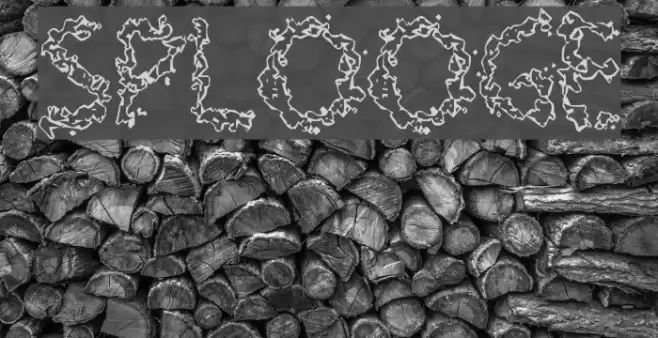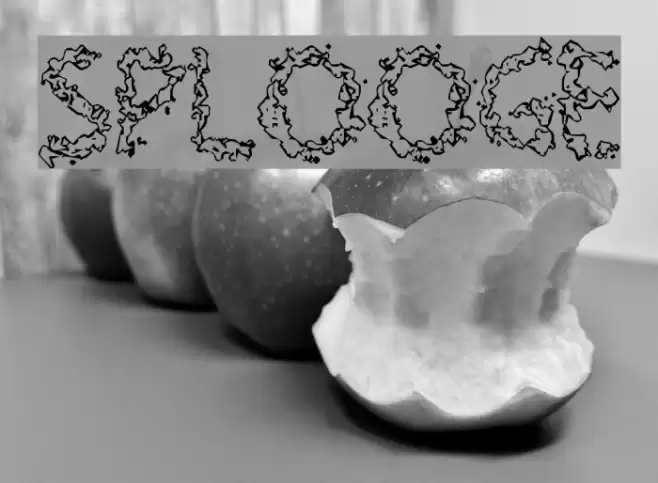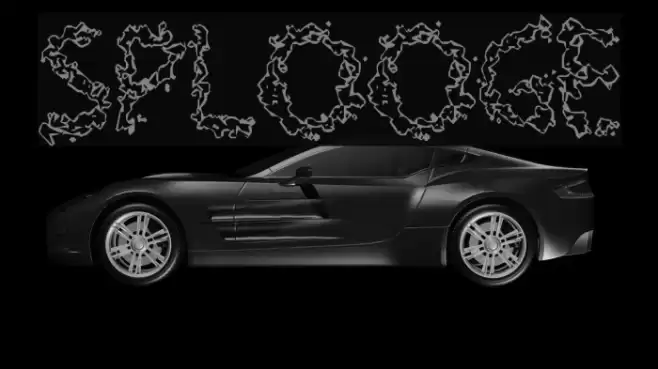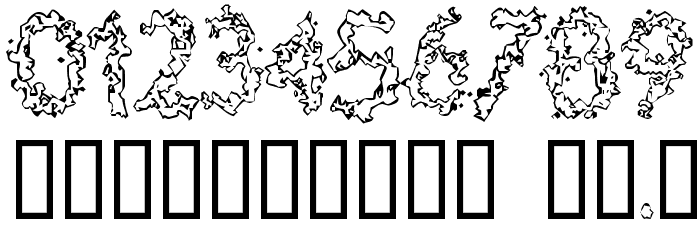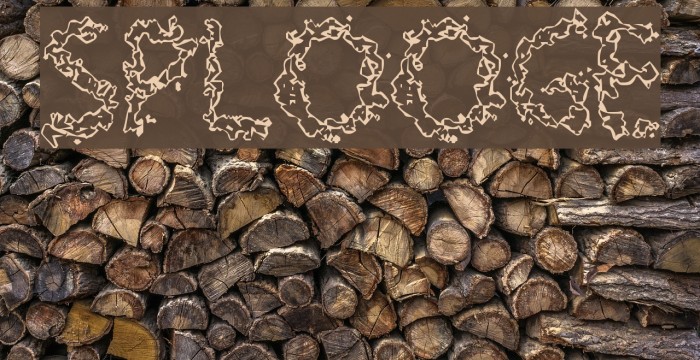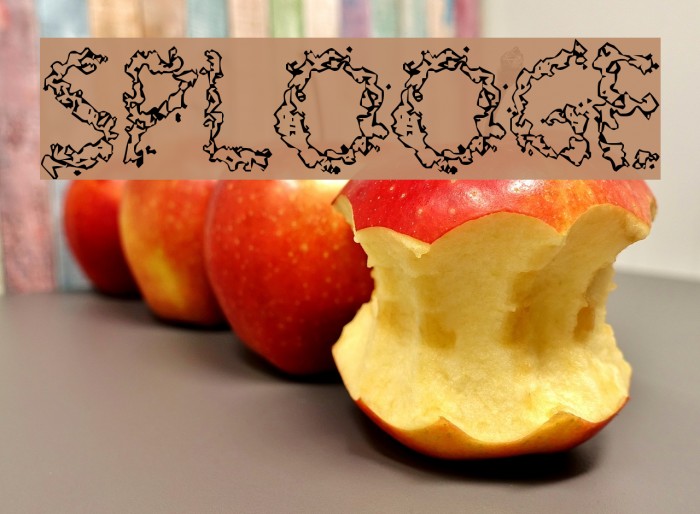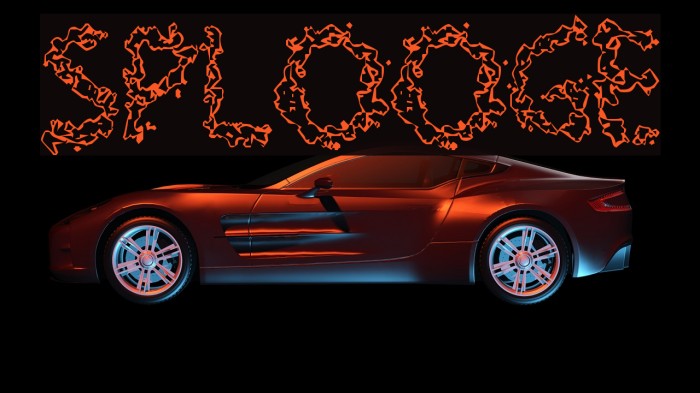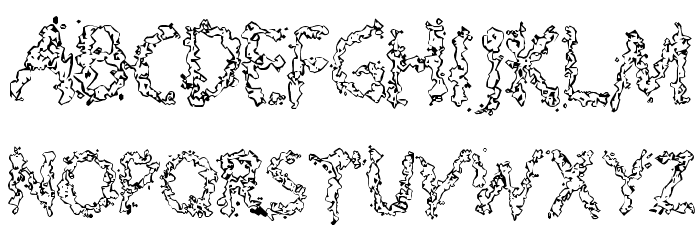
Splooge Font
Splooge Description
This font features a highly decorative and abstract design, with each character appearing as if it is composed of intricate, organic patterns. The letters and numbers have a unique, fluid form that resembles splashes or ink blots, giving them a dynamic and artistic appearance. The overall look is chaotic yet controlled, with each character maintaining a consistent style throughout the set. The font's playful and unconventional nature makes it stand out, offering a creative and eye-catching option for various design projects.
A decorative font with abstract, organic patterns resembling ink blots from Distorted Eroded fonts.
- Proposed Projects: Ideal for artistic projects, album covers, posters, and creative branding that seeks a unique and eye-catching aesthetic.
- Use Case: Logos, Posters, Artistic projects